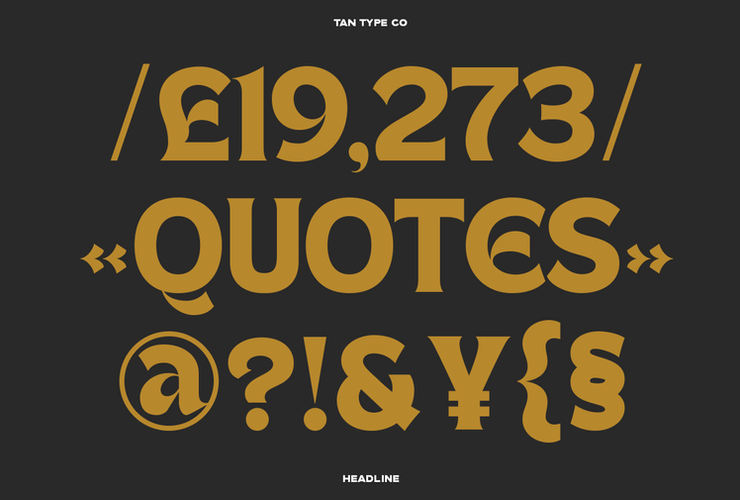
TAN Headline specimen and verified specs
- Styles: 1 (Regular)
- Glyphs: 337
- Language support: Basic Latin (English), Western European, Central & Eastern European
- OpenType features: stylistic alternates, kerning
- Designer: Novia Jonatan (TanType Co.)
Design and character
TanType describes TAN Headline as “a simple-looking retro inspired display serif with enough twist to make it interesting”. That is a fair summary of the specimen above, which we rendered from the licensed font files. At a glance it is a heavy, slightly narrow serif. Up close, the serifs are not the usual bracketed kind: the stems flare out into wedge-shaped ends, closer to carved lettering than to a book face.
The “twist” shows in individual letters. The lowercase e has a slanted crossbar, which gives it an old, hand-drawn look. The x is drawn with a curved, almost calligraphic stroke. The l ends in a small upturned foot, the g has an open, swinging tail, and the capital Q trails a long sweeping tail beneath the next letter. The capital E is rounded rather than square, and the dollar sign carries its vertical stroke only above and below the S.
The contrast between thick and thin strokes is moderate and the counters are fairly open, but the heavy weight and quirky details are made for size. As the name suggests, it reads best in headlines, poster lines and short pull quotes.
Language support and OpenType features
The TAN Headline font covers Basic Latin (English) plus Western European and Central and Eastern European characters, so text in French, German, Spanish, Polish or Czech will not show missing-letter boxes.
The font has two OpenType features:
- Kerning corrects the spacing between particular letter pairs. It is applied automatically in nearly every app.
- Stylistic alternates are extra versions of certain letters stored inside the font. You reach them through the Glyphs panel in Illustrator, InDesign or Photoshop, the Typography or Glyph Browser panels in Affinity apps, or by turning on stylistic alternates in an OpenType menu.
The font has no glyphs in the Private Use Area (PUA), which matters for Canva and Cricut. Those apps cannot switch OpenType alternates on, and without PUA codes there is no copy-and-paste workaround. You will get the default letters shown in the character set; to use the alternates, set the text in an OpenType-capable app and bring it in as an image or SVG.
Best uses and font pairings
TAN Headline fits editorial and vintage-leaning work: magazine and newsletter titles, book covers, record sleeves, restaurant and coffee branding, product packaging and event posters.
Some pairings that keep the hierarchy clear:
- Source Sans 3 for body text, a clean sans that stays out of the way.
- Libre Franklin for subheads and captions, with a slightly American, newspaper tone.
- DM Mono for dates, prices and small labels, adding a modern counterpoint to the retro serif.
Who designed TAN Headline?
Novia Jonatan, according to the font files, for TanType Co. tantype.com is not connected to the foundry.